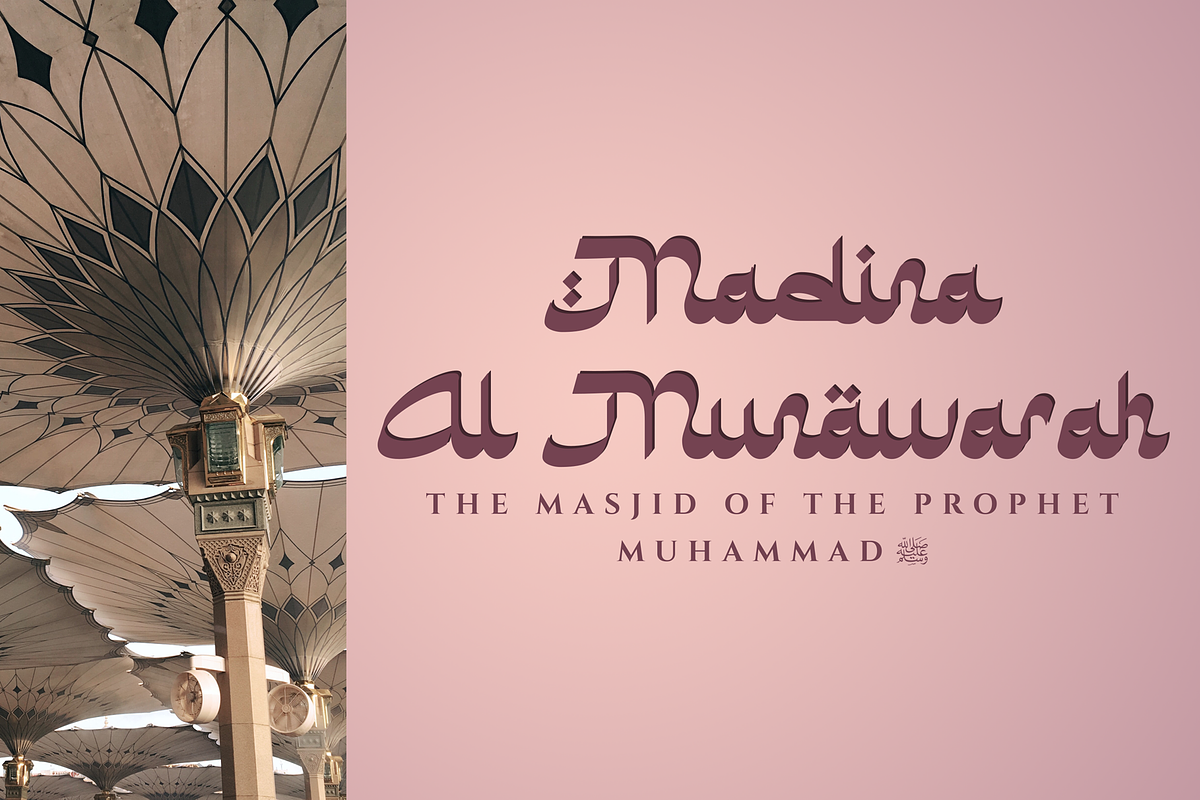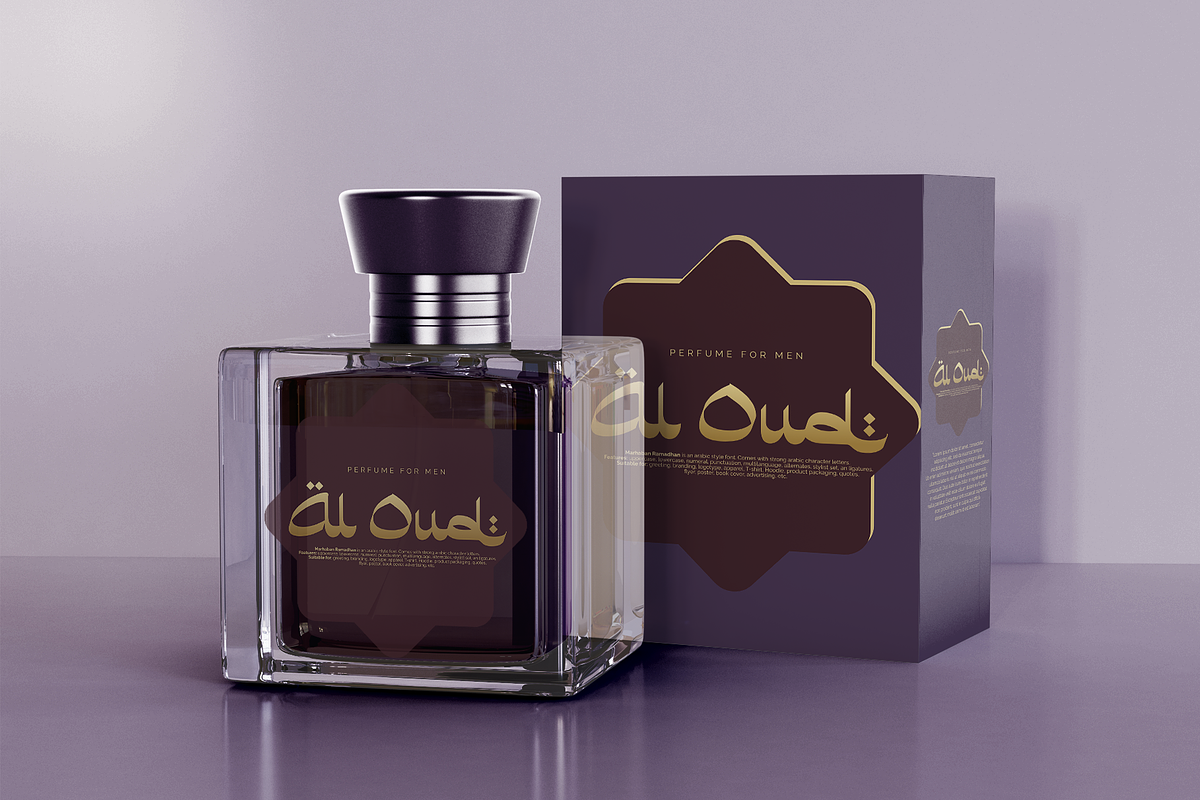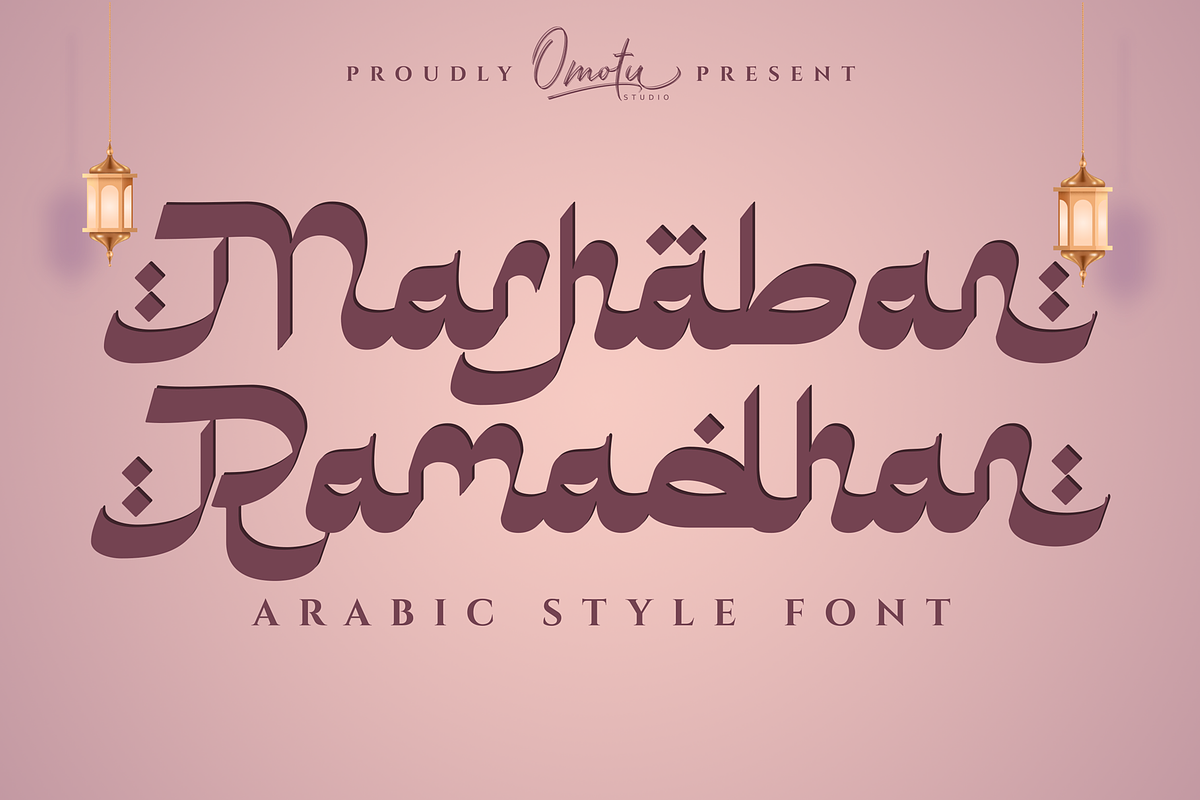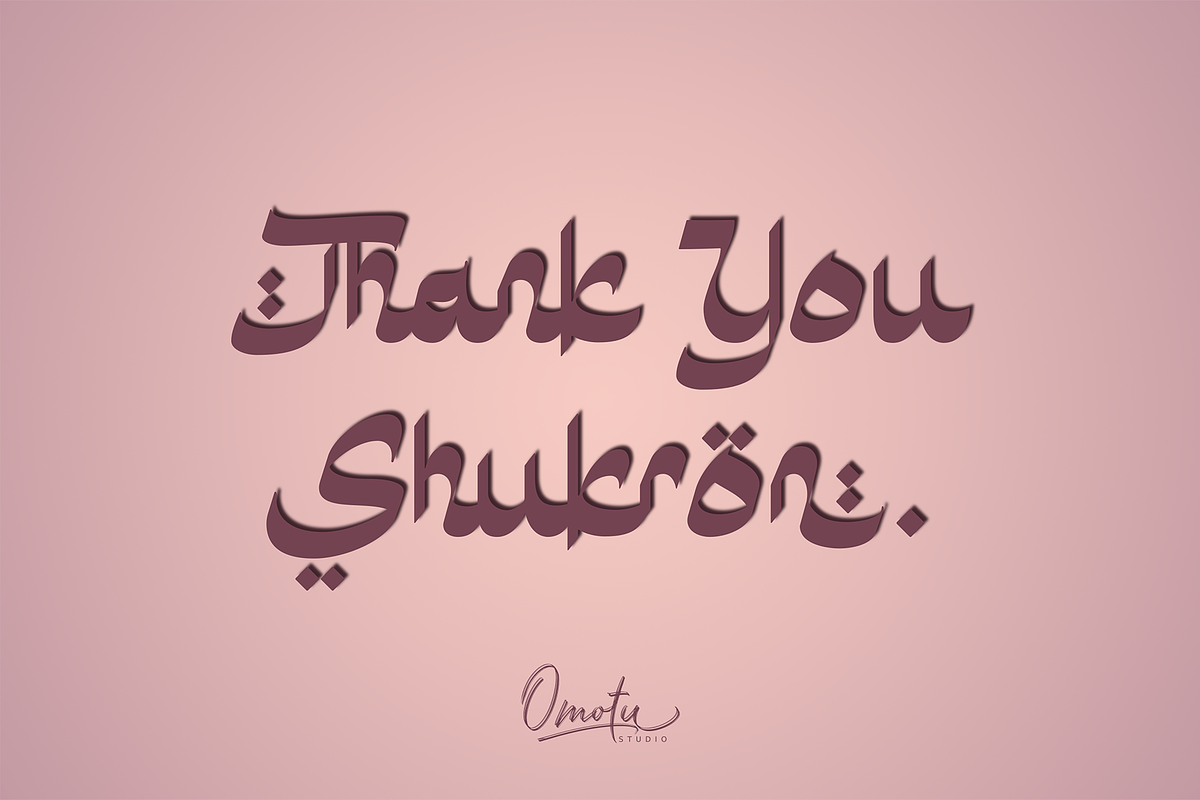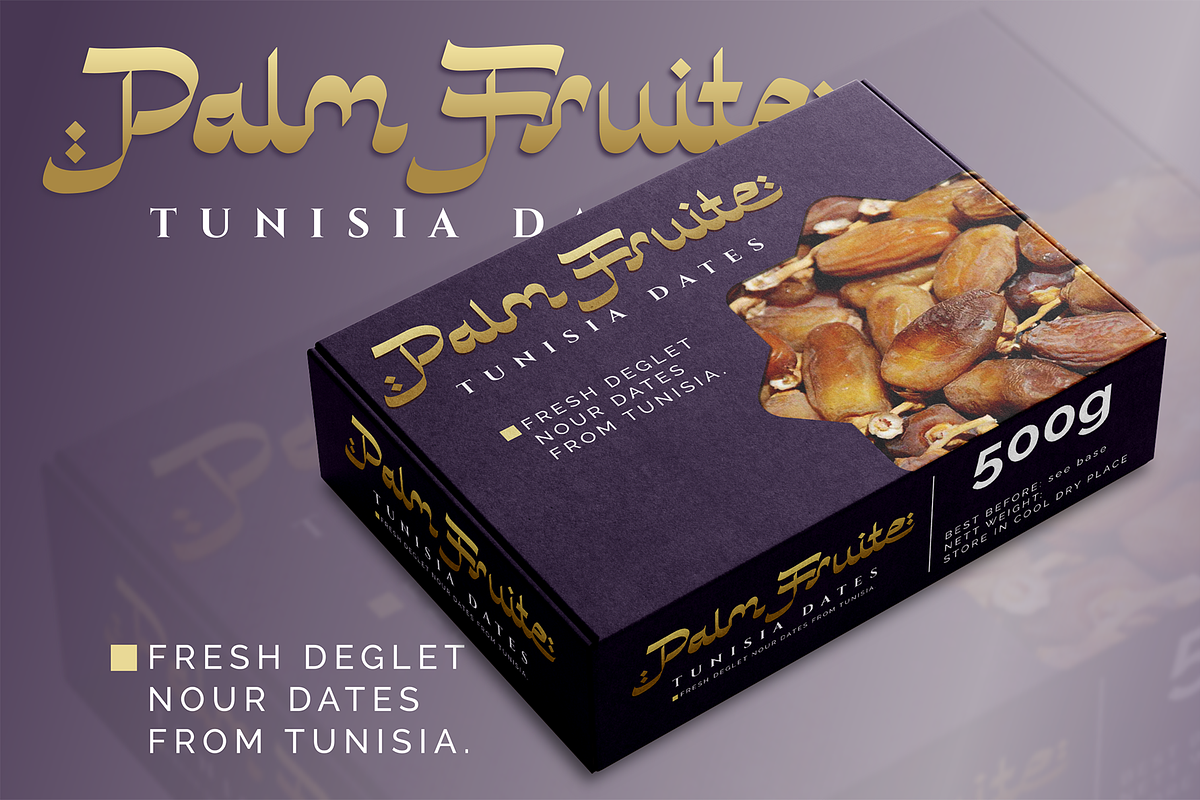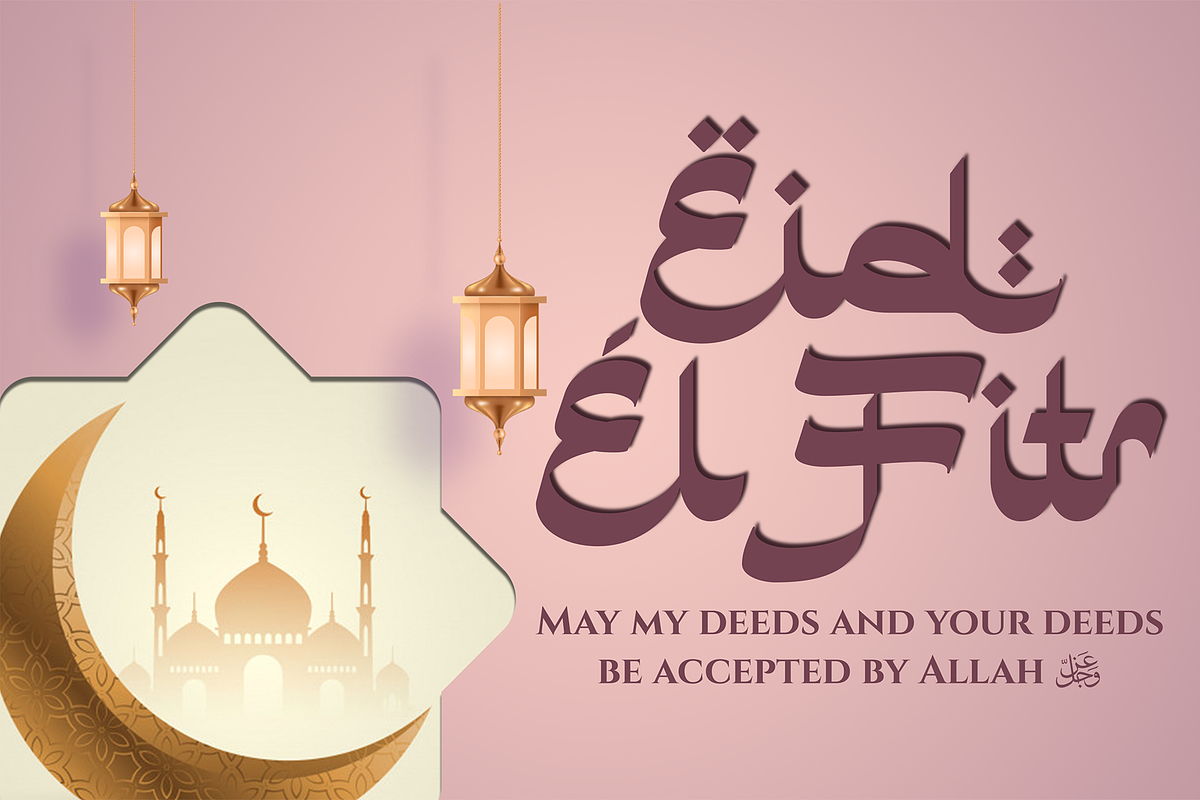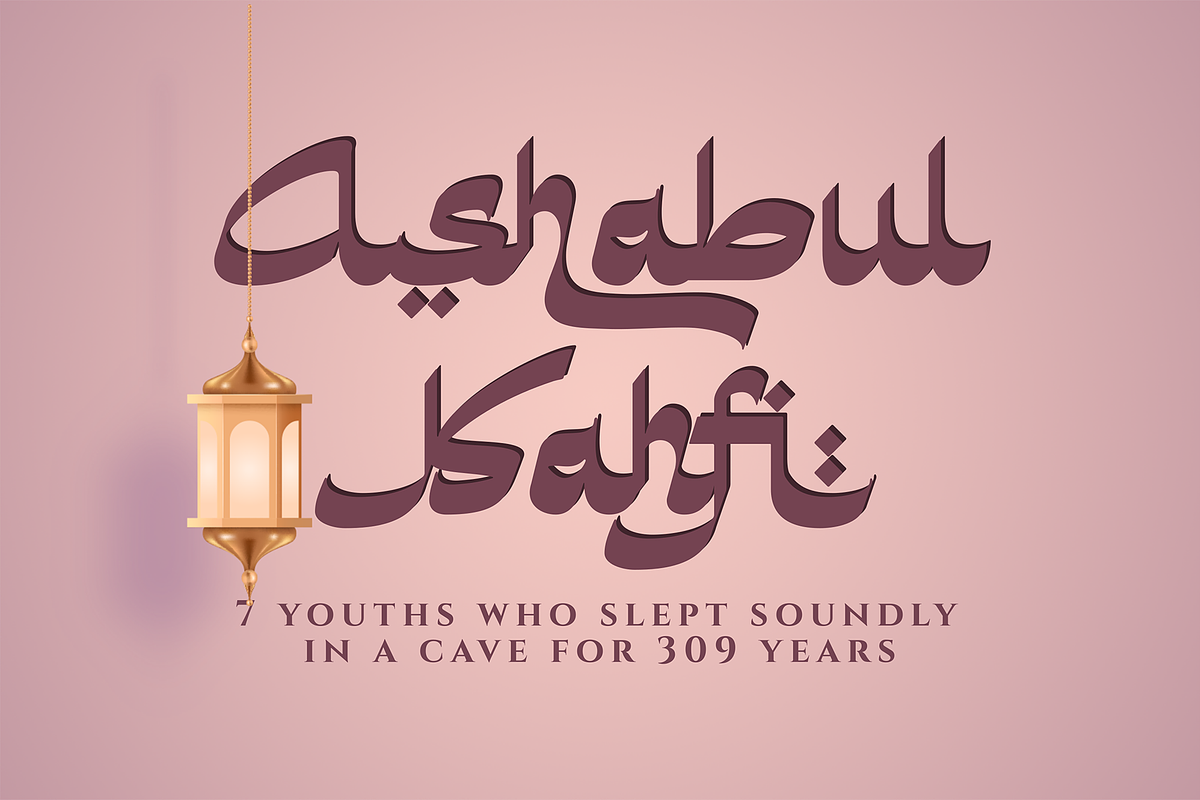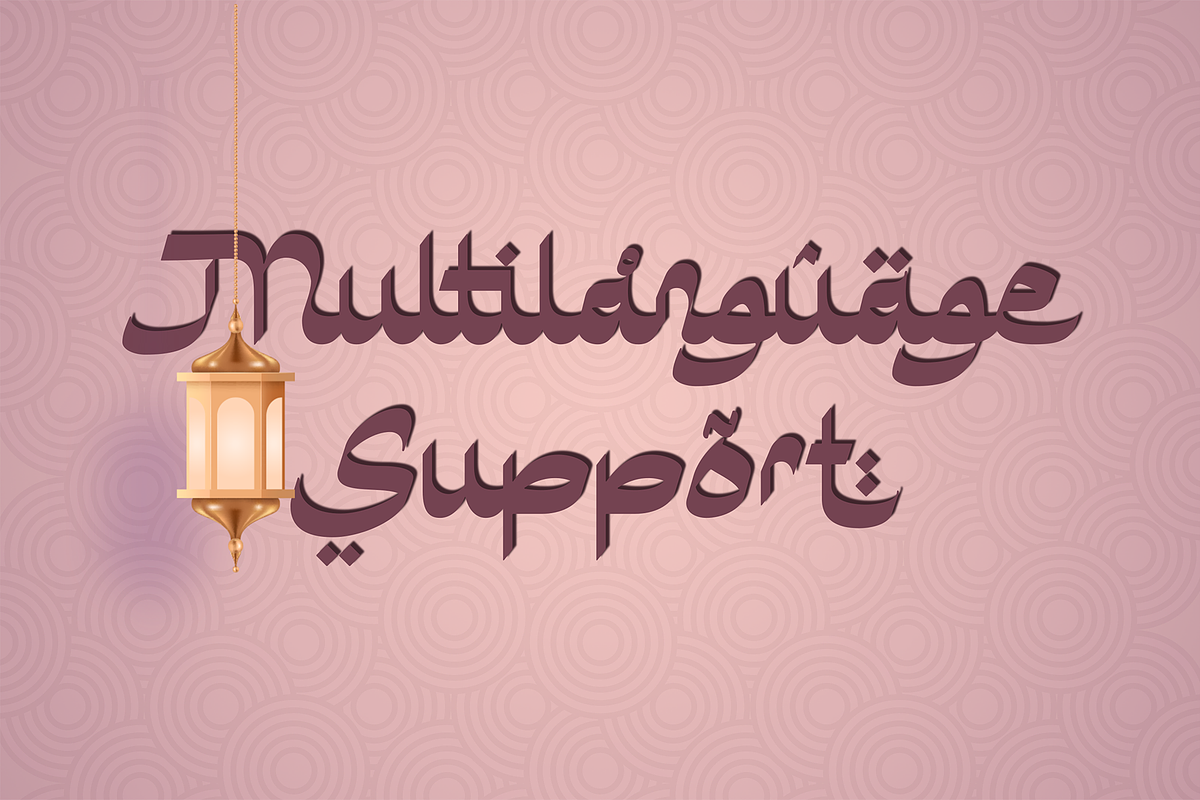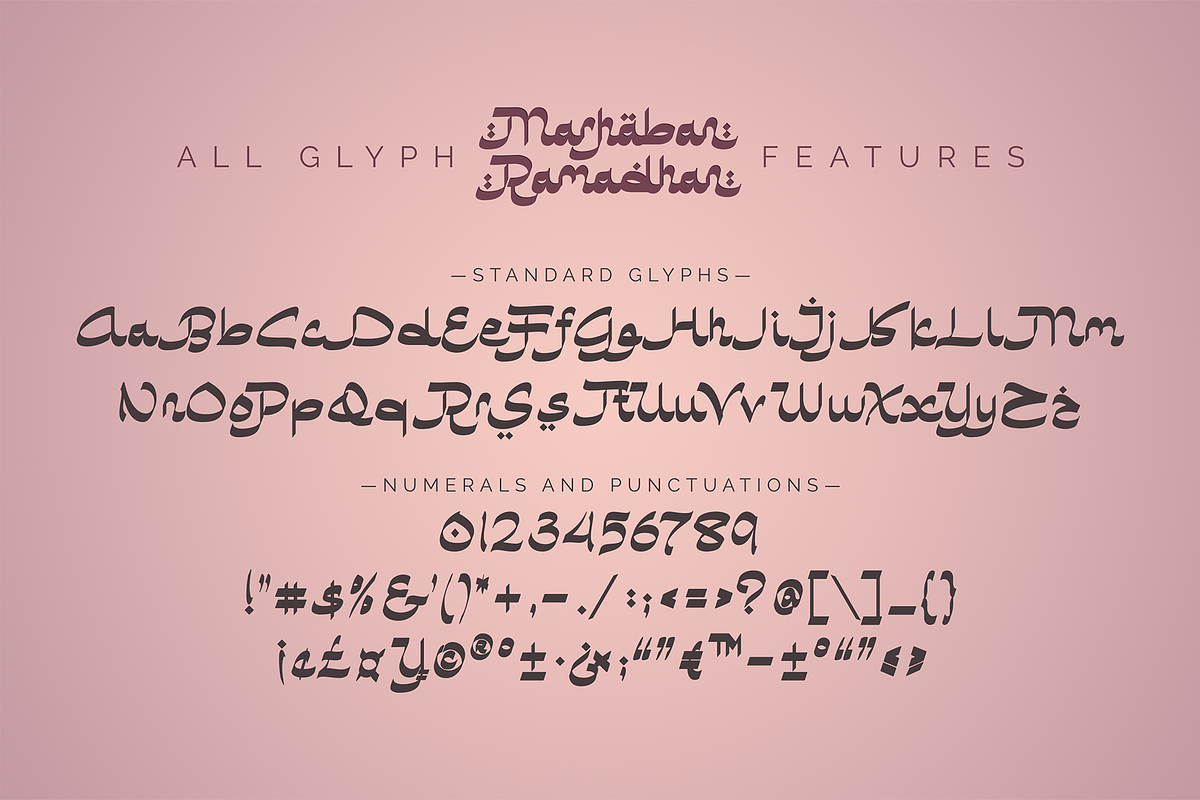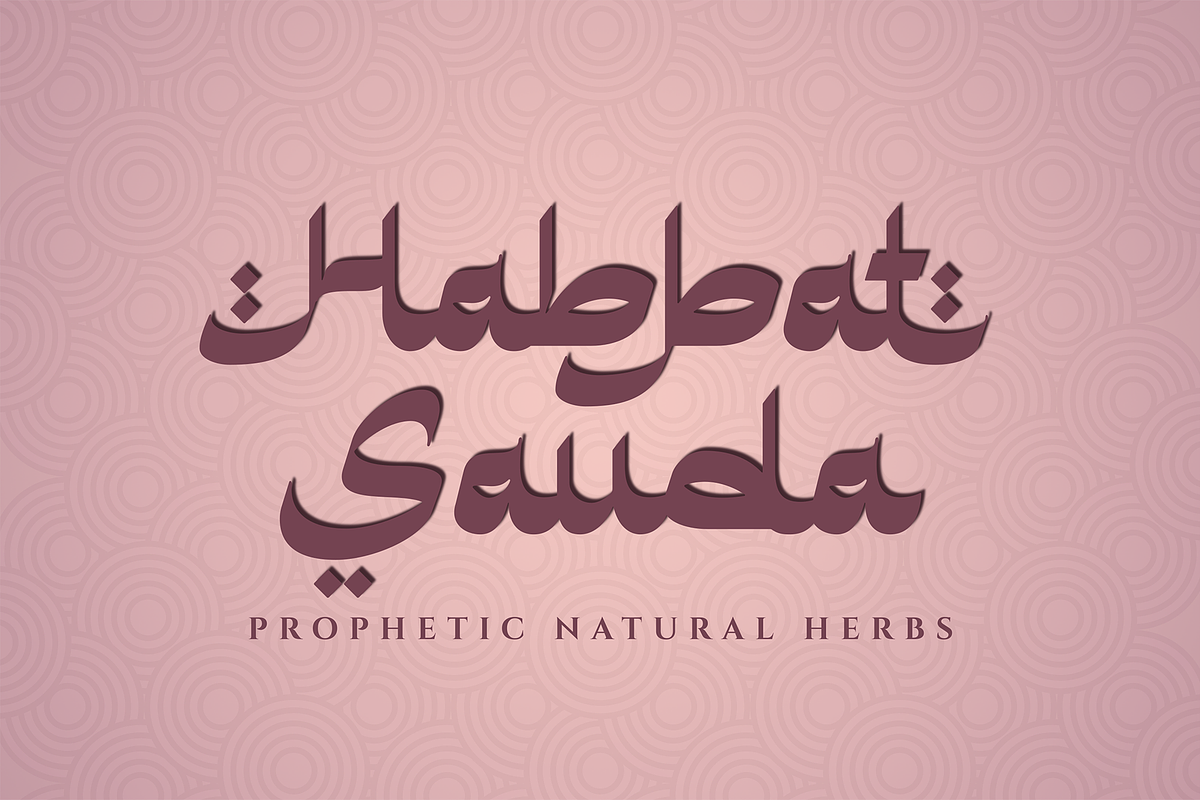
Marhaban Ramadhan
Marhaban Ramadhan is an arabic style font. Comes with arabic character letters look. This font very usable for designing all kind of graphics design related to Islamic Contents. Marhaban Ramadhan font is suitable for branding, logotype, apparel, T-shirt, Hoodie, product packaging, quotes, flyer, poster, book cover, advertising, etc.
- Features: uppercase, lowercase, numeral, punctuation, multilanguage, alternates, stylist set, and ligatures.